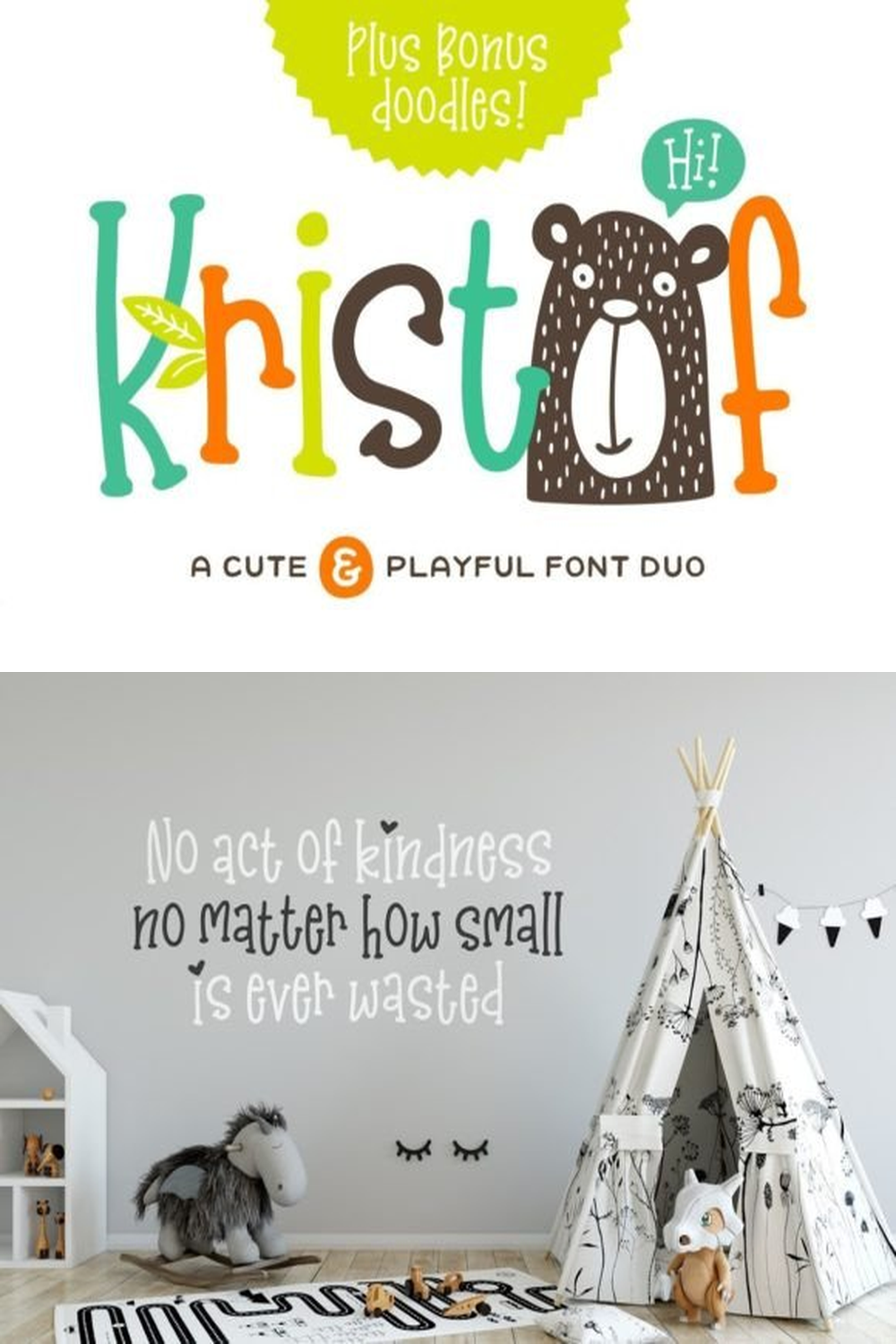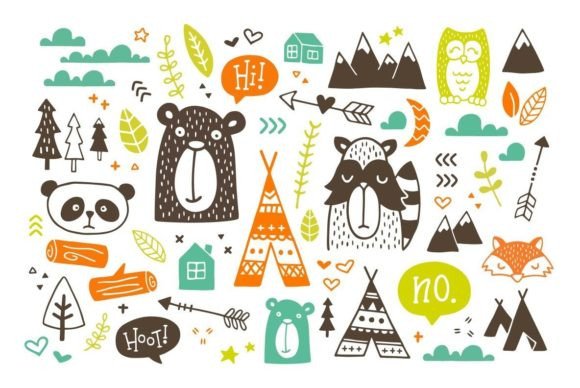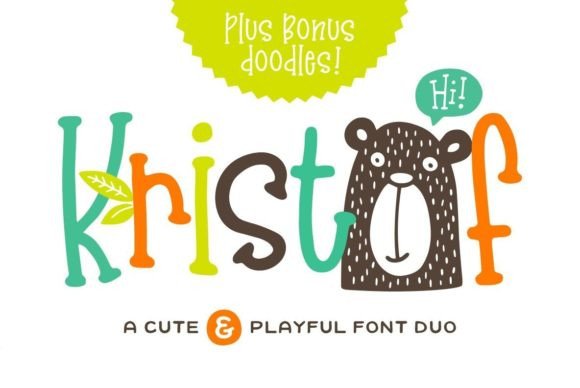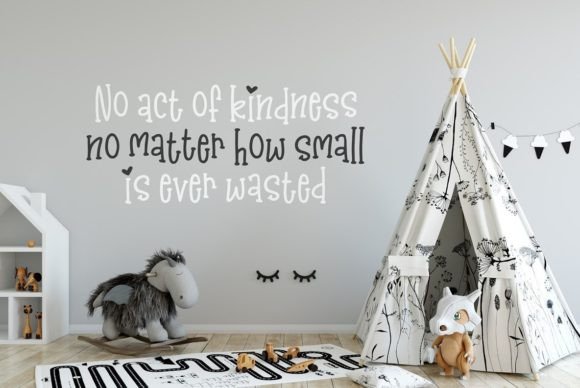
Kristof Font
About the Kristof Font
Presenting Kristof Font, a unique and stylish typeface that will make your work stand out. Say hello to Kristof! An adorable duo that combines a thin, bouncy font with bold, patterned letters. Also included are a set of super cute nature-themed doodles to enhance your designs.
Kristof’s playful energy makes it ideal for children’s books, branding for playful products, or eye-catching packaging designs. It works exceptionally well in headlines, short phrases, and as an accent font, adding a touch of whimsy. However, its thin strokes and decorative elements make it less suitable for body text or UI elements where legibility is paramount.
Pairing Kristof with a clean sans-serif like Open Sans for body copy creates a balanced design. For a more sophisticated feel, consider pairing it with a classic serif like Garamond. The doodles included in the font family can be used to further enhance the playful feel, but should be used sparingly to avoid visual clutter.
Its overall personality is best described as cheerful and approachable, conveying a sense of fun and lightheartedness. Avoid using it in contexts demanding seriousness or formality.
Kristof Font Usage Examples
Kristof Font Example